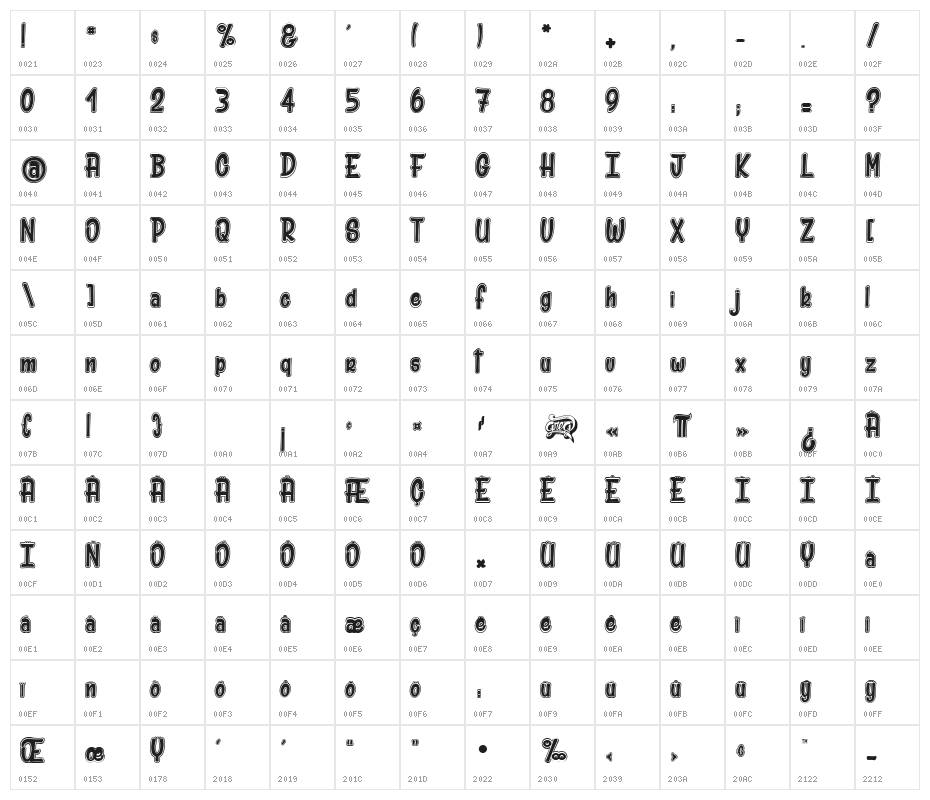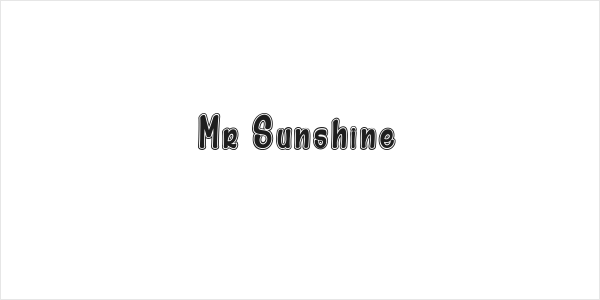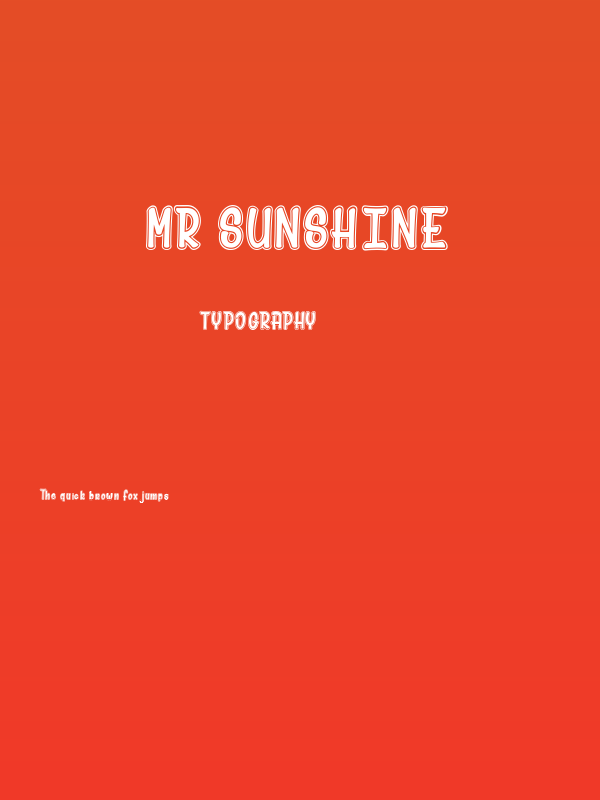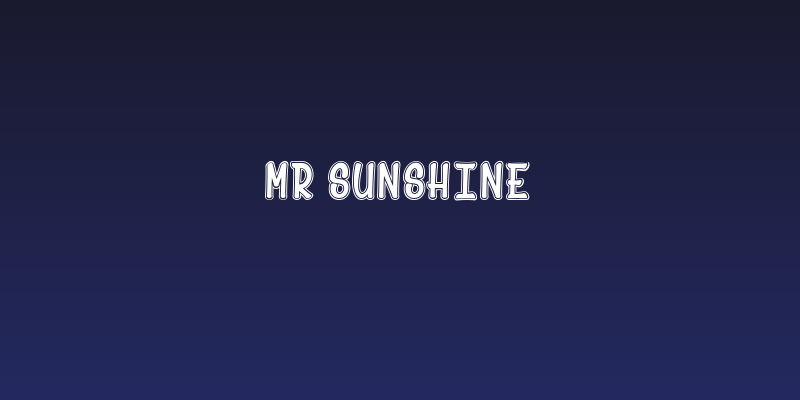
Mr Sunshine Font
Mr Sunshine Description
This playful and bold font features a unique outline style that gives it a three-dimensional appearance. Each character is designed with a thick, black outline that contrasts sharply with the white interior, creating a striking visual effect. The uppercase and lowercase letters maintain a consistent style, with rounded edges and a slightly condensed form. Numbers and special characters follow the same design principles, ensuring a cohesive look across all elements. This font's whimsical and eye-catching design makes it ideal for projects that require a fun and engaging aesthetic.
| Proposed Projects | Ideal for children's book covers, playful branding, event posters, and creative social media graphics. |